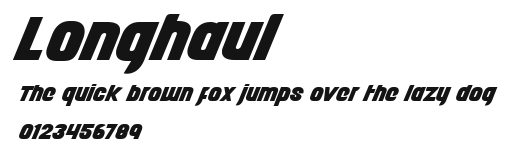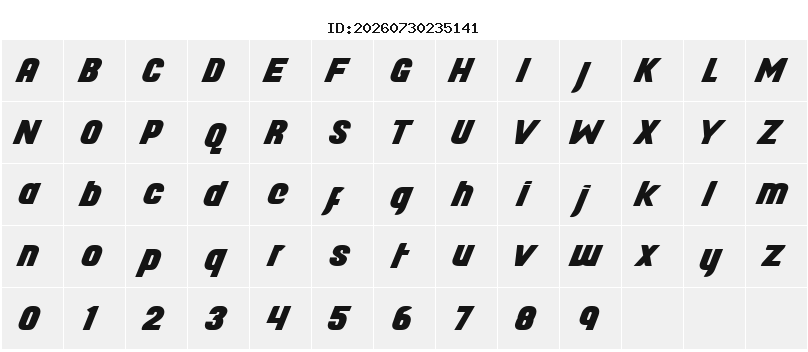
Longhaul Preview
• Font Name: Longhaul
• Full Font Name: Longhaul
• PostScript Name: Longhaul
• Designer: James Barnardo
About Longhaul.ttf
Longhaul.ttf is a modern, elegant sans-serif font designed for ultimate readability and visual harmony. Perfect for branding, headlines, web design, and print materials.